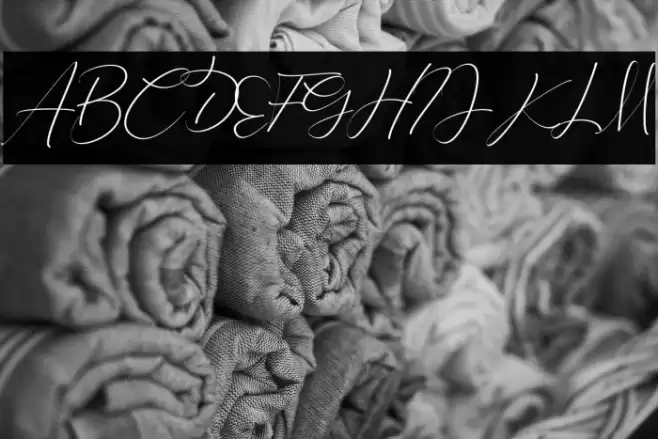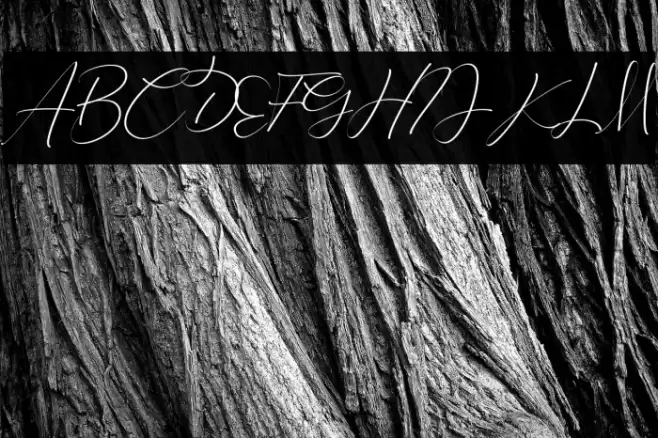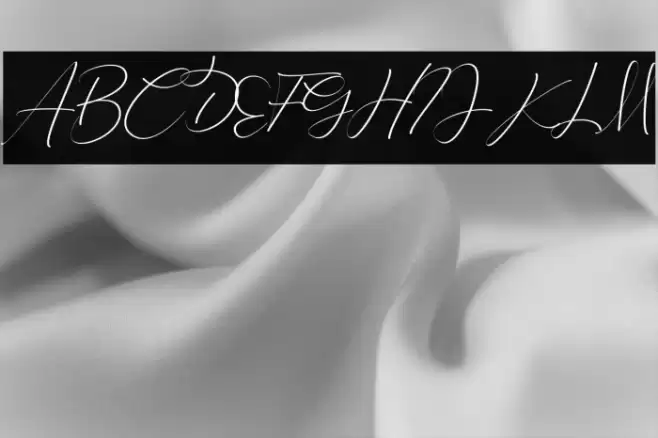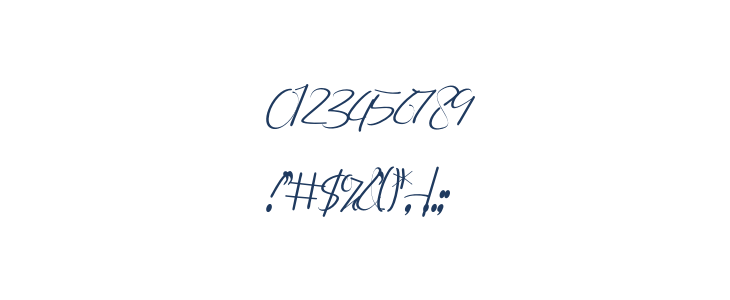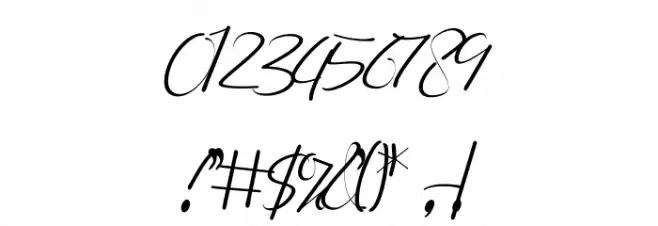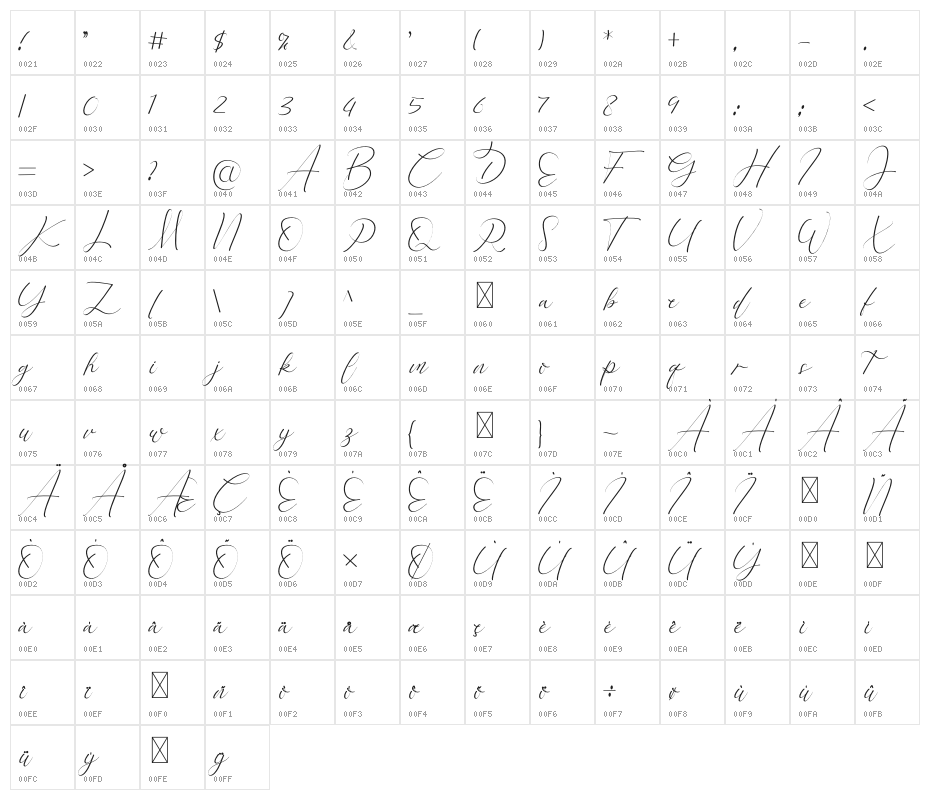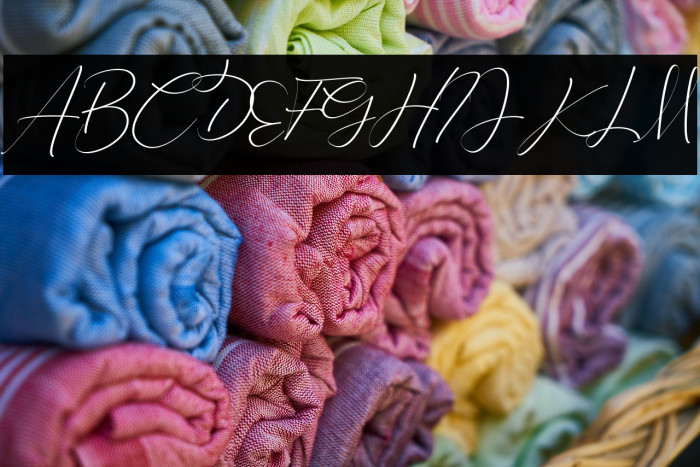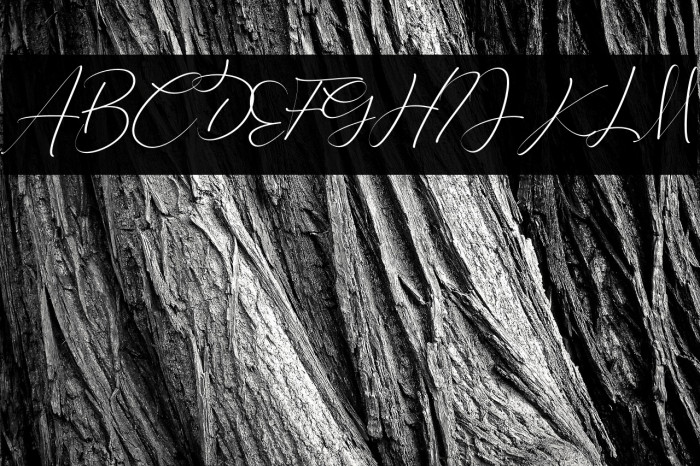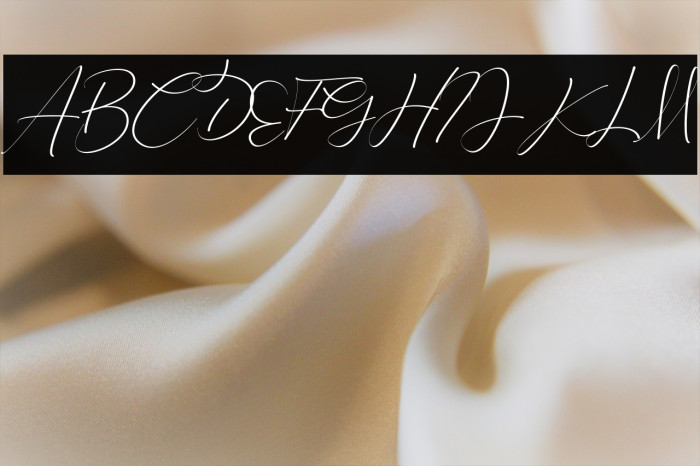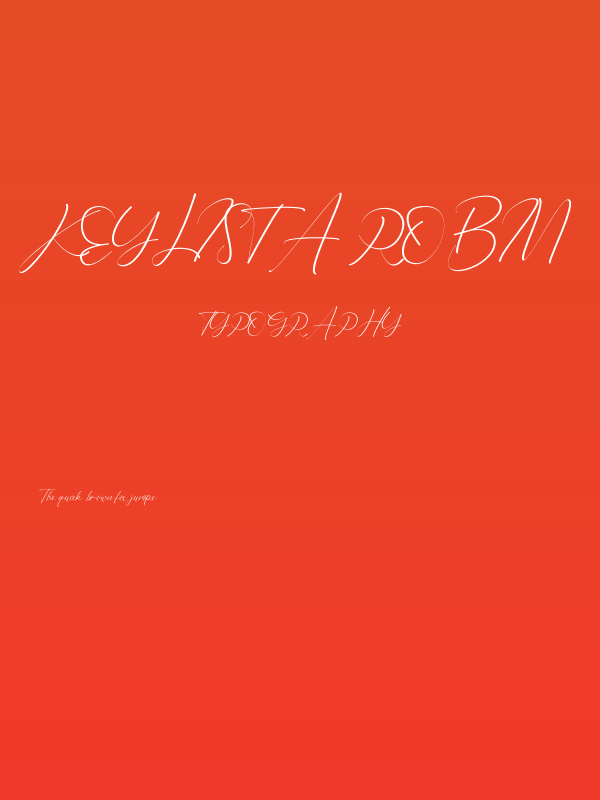
Keylista Robin Font
Keylista Robin Description
This elegant and flowing script font exudes a sense of sophistication and grace. The characters are intricately designed with smooth, sweeping curves and delicate lines, creating a harmonious and fluid appearance. The uppercase letters are tall and slender, while the lowercase letters maintain a consistent flow, enhancing the font's overall elegance. The numerals and special characters are crafted with the same attention to detail, ensuring a cohesive look across all elements. This font is perfect for projects that require a touch of class and refinement.
An elegant and flowing script font with sophisticated, sweeping curves from Uncategorized fonts.
- Font: Keylista Robin
- Proposed Projects: Ideal for wedding invitations, elegant branding, high-end product packaging, and personal stationery.
- Overall Style: Elegant
- Use Case: Logos, Invitations, Stationery